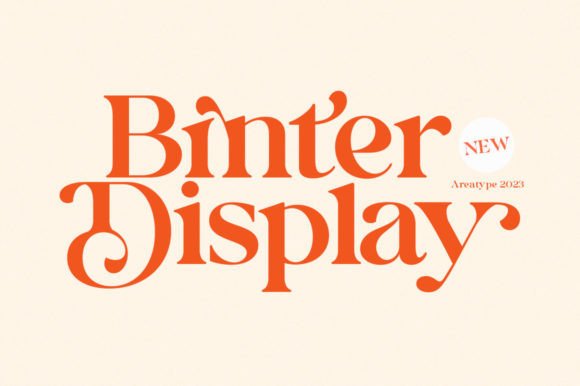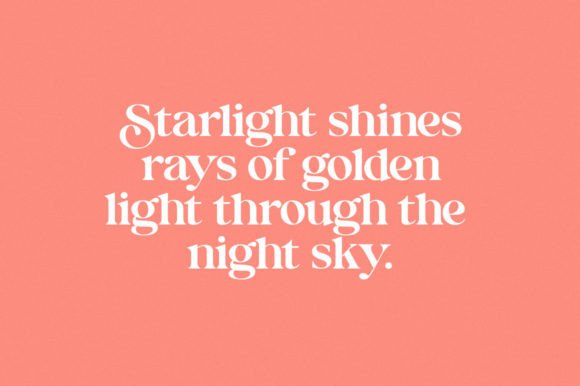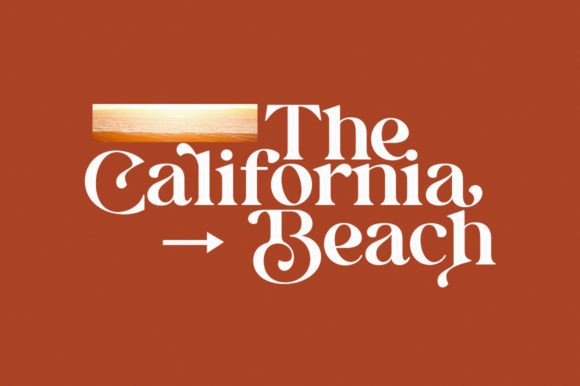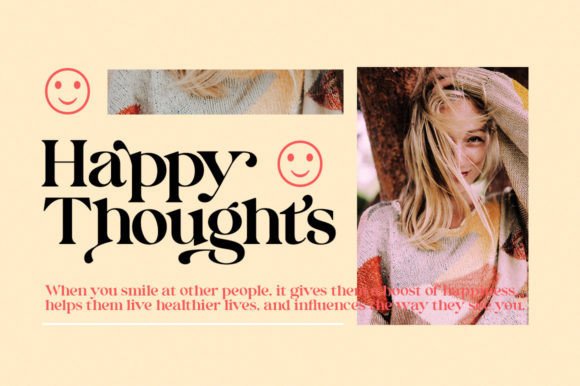
Binter Display is an attractive and beautiful typeface that exudes sophistication and charm. Its classic, refined letters are inspired by traditional typography, making it perfect for editorial design, branding, and print materials. Its graceful and timeless appearance adds a touch of beauty to any design project, making it truly stand out.